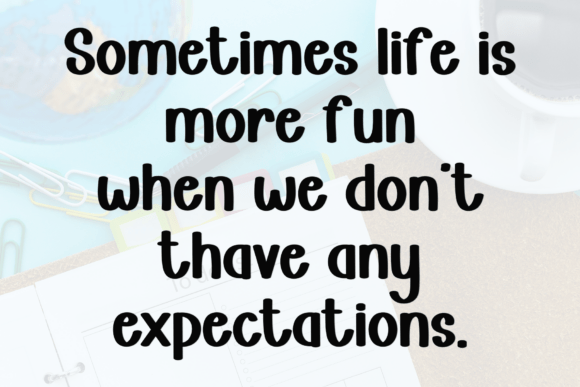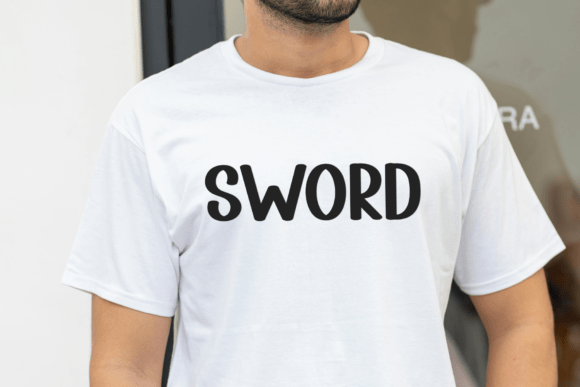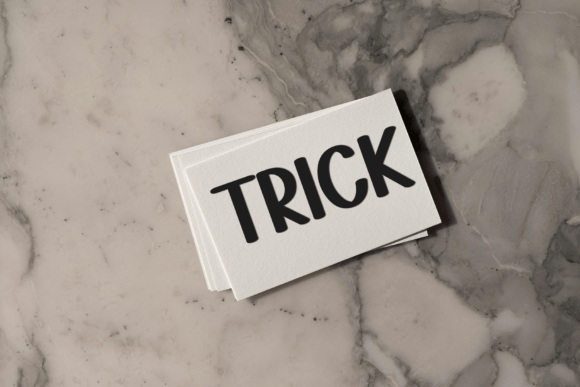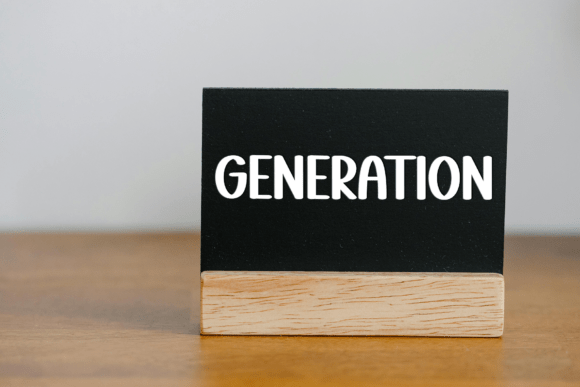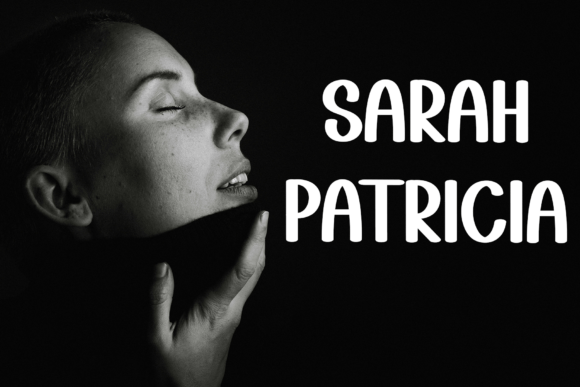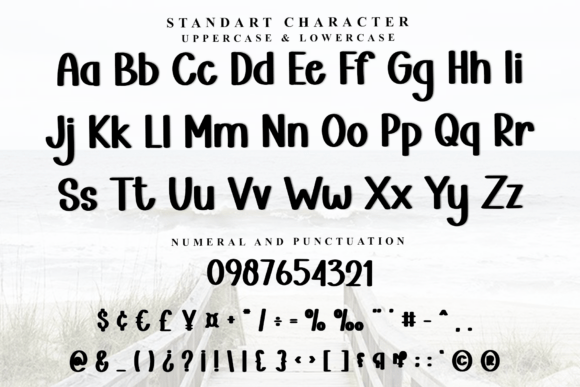
Dreaming Teacher Font: The Perfect Choice for Creative Designs
Are you a designer, crafter, or DIY enthusiast looking for a font that can add a personal touch to your projects? Look no further than the Dreaming Teacher Font. This casual and creative font is designed to exude warmth and friendliness, making it perfect for personal projects, invitations, social media graphics, and more.
The Characteristics of Dreaming Teacher Font
The Dreaming Teacher Font is characterized by its round, playful strokes that create a relaxed and approachable feel. The font’s charming, hand-drawn aesthetic adds a fun and unique touch to any design, making it stand out from more traditional fonts. The font is equipped with standard PUA Encoded glyphs, which are designed to work seamlessly with various application engines such as Adobe Photoshop, Corel, Adobe Illustrator, Canva, and many others.
What Makes Dreaming Teacher Font So Versatile?
The Dreaming Teacher Font is incredibly versatile, making it suitable for a wide range of design projects. Whether you’re creating:
- Personalized invitations for special occasions, such as birthdays, weddings, or baby showers
- Social media graphics to engage with your audience
- DIY craft projects, such as handmade cards or scrapbooking
- Branding materials, such as logos or business cards
The Dreaming Teacher Font is the perfect choice. Its friendly and approachable feel makes it easy to connect with your audience, while its playful strokes add a creative and whimsical touch.
The Benefits of Using Dreaming Teacher Font
So why choose the Dreaming Teacher Font for your design projects? Here are just a few benefits:
- Easy to read: The font’s clear and simple design makes it easy to read, even at smaller sizes
- Highly versatile: The font can be used for a wide range of design projects, from personal to commercial
- Unique and creative: The font’s hand-drawn aesthetic adds a fun and unique touch to any design
How to Use Dreaming Teacher Font in Your Designs
Using the Dreaming Teacher Font in your designs is easy. Here are a few tips to get you started:
- Pair it with other fonts: The Dreaming Teacher Font pairs well with other fonts, such as sans-serif fonts or script fonts
- Experiment with colors: The font looks great in a range of colors, from bright and bold to pastel and soft
- Add graphics and illustrations: The font is perfect for adding graphics and illustrations to your designs, such as icons, shapes, or images
The Dreaming Teacher Font is a versatile and creative font that is perfect for designers, crafters, and DIY enthusiasts. Its friendly and approachable feel, combined with its playful strokes and hand-drawn aesthetic, make it a great choice for a wide range of design projects. With its standard PUA Encoded glyphs and compatibility with various application engines, this font is easy to use and highly versatile. So why not give it a try and see how it can add a personal touch to your designs?